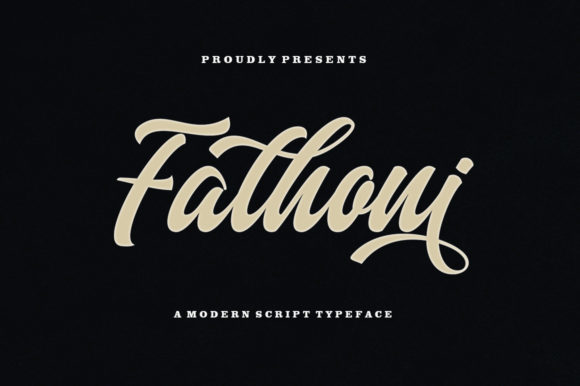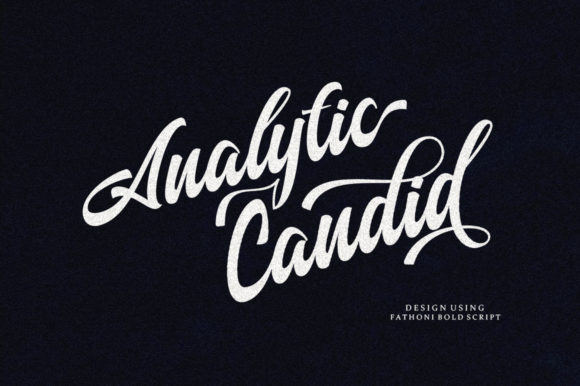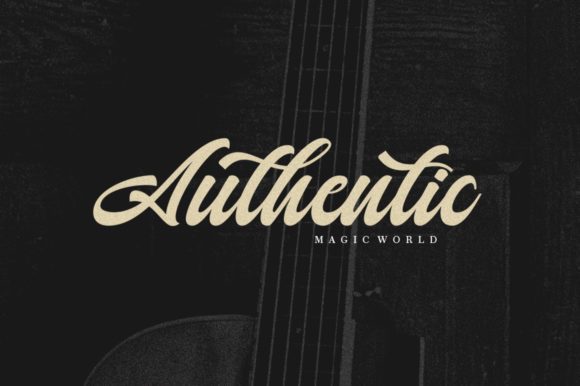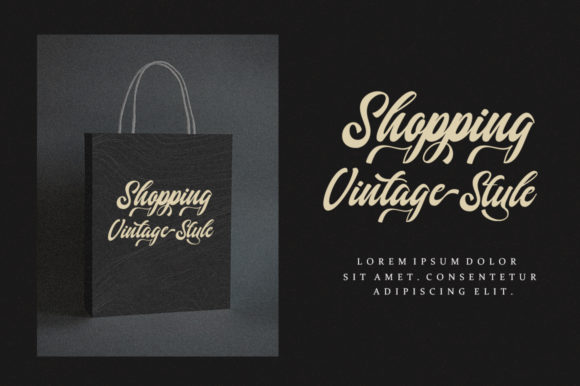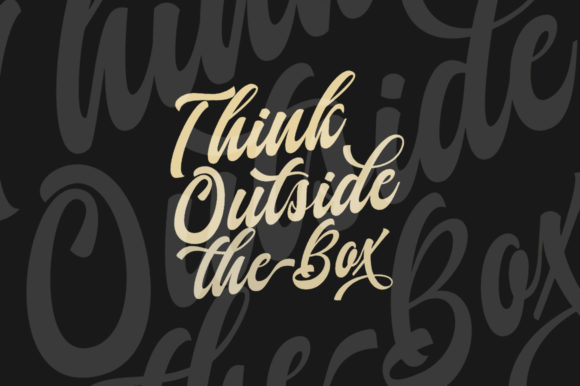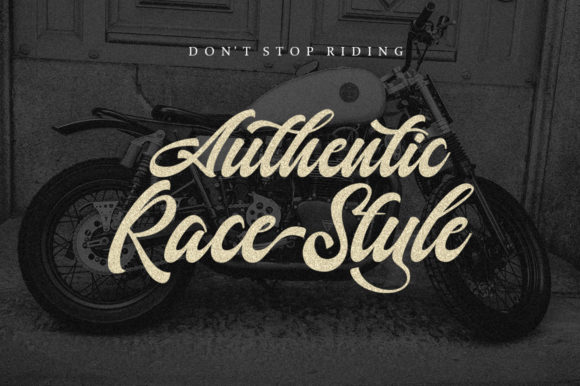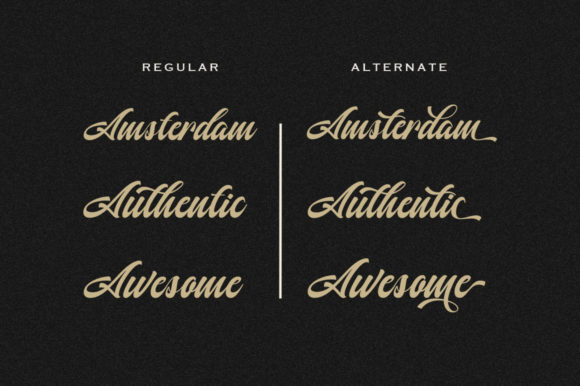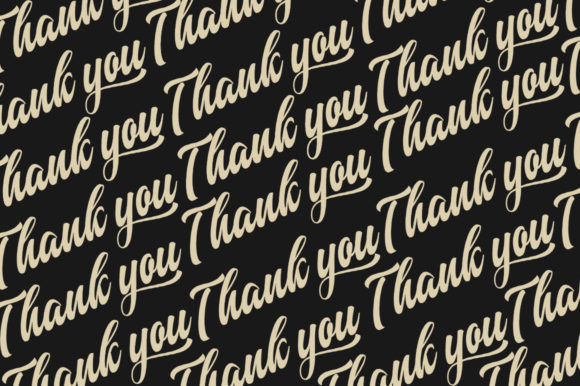
Fathoni Font
About Fathoni Font
Fathoni is a one-of-a-kind handwritten calligraphy script. It will add an authentic appearance to any crafting project!